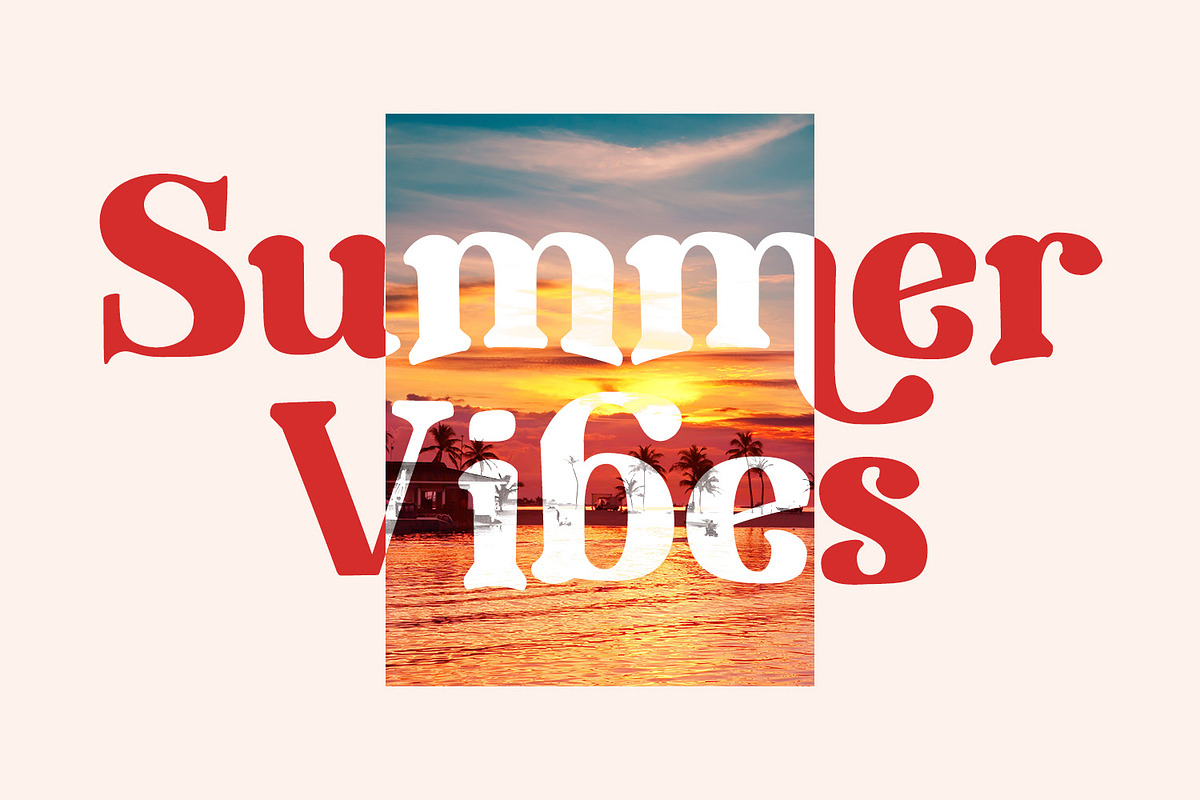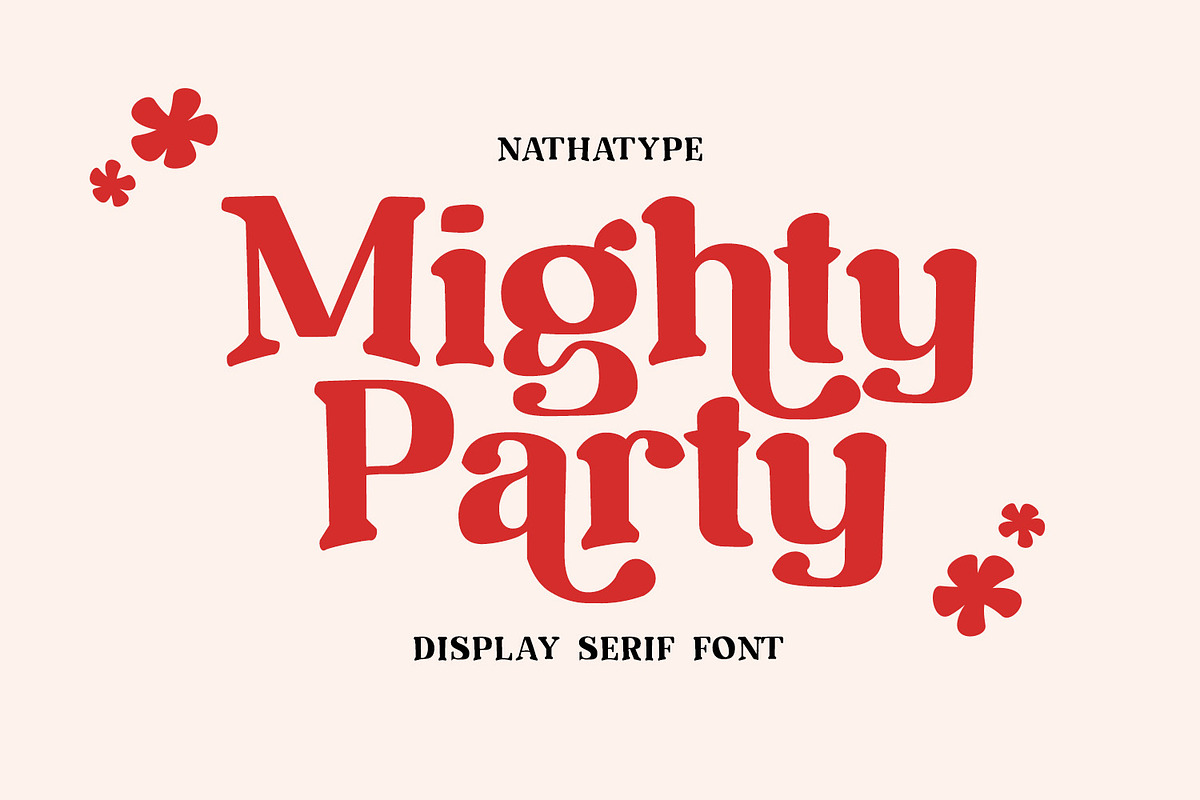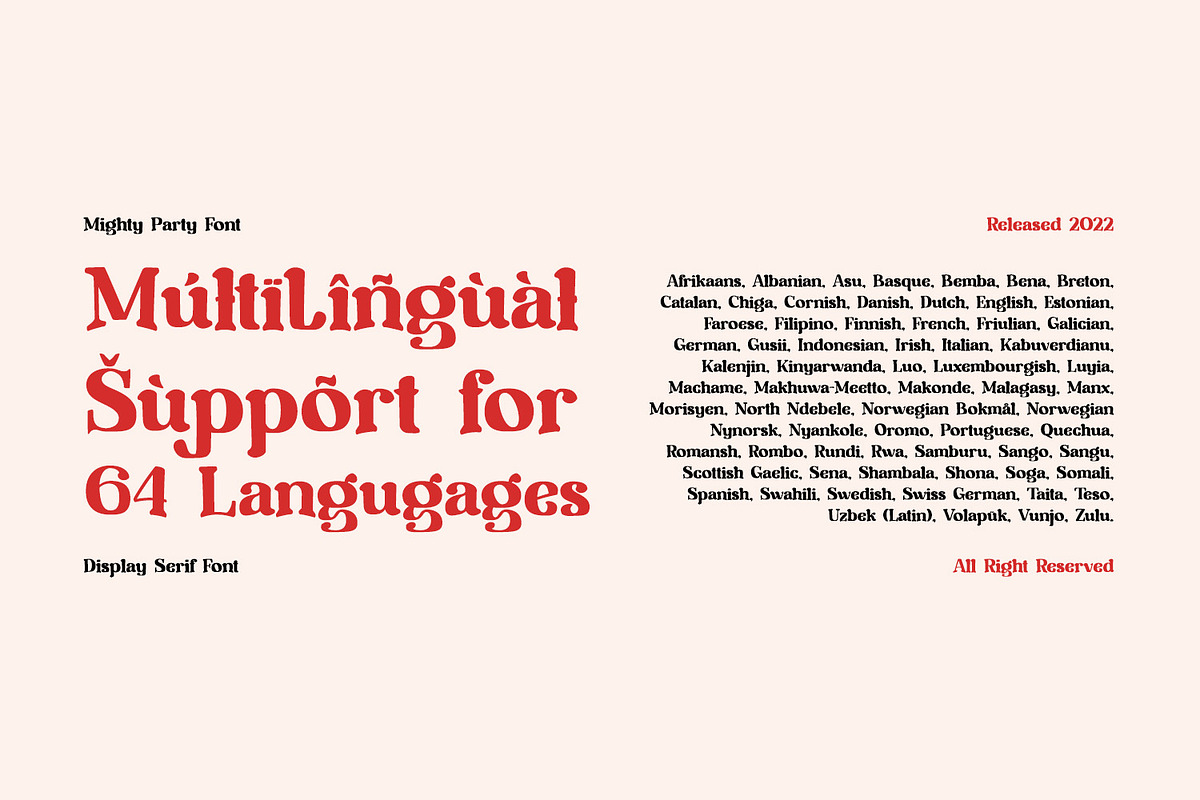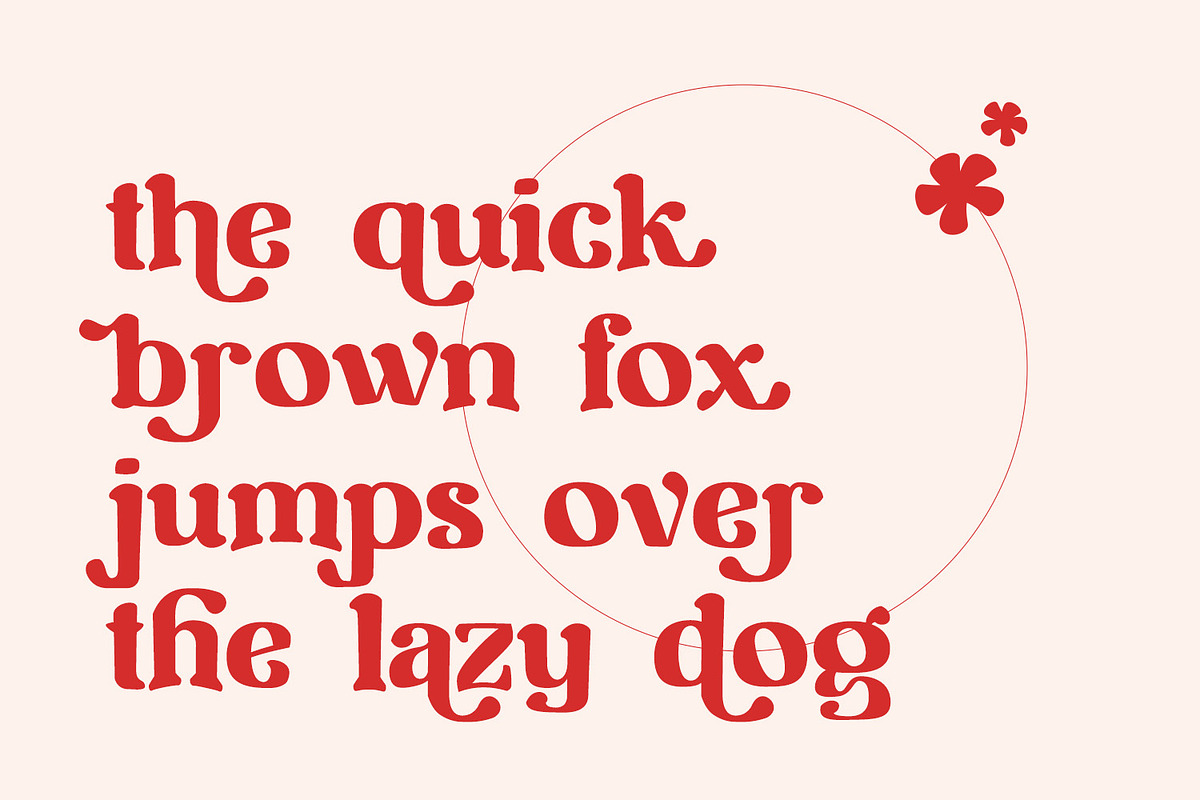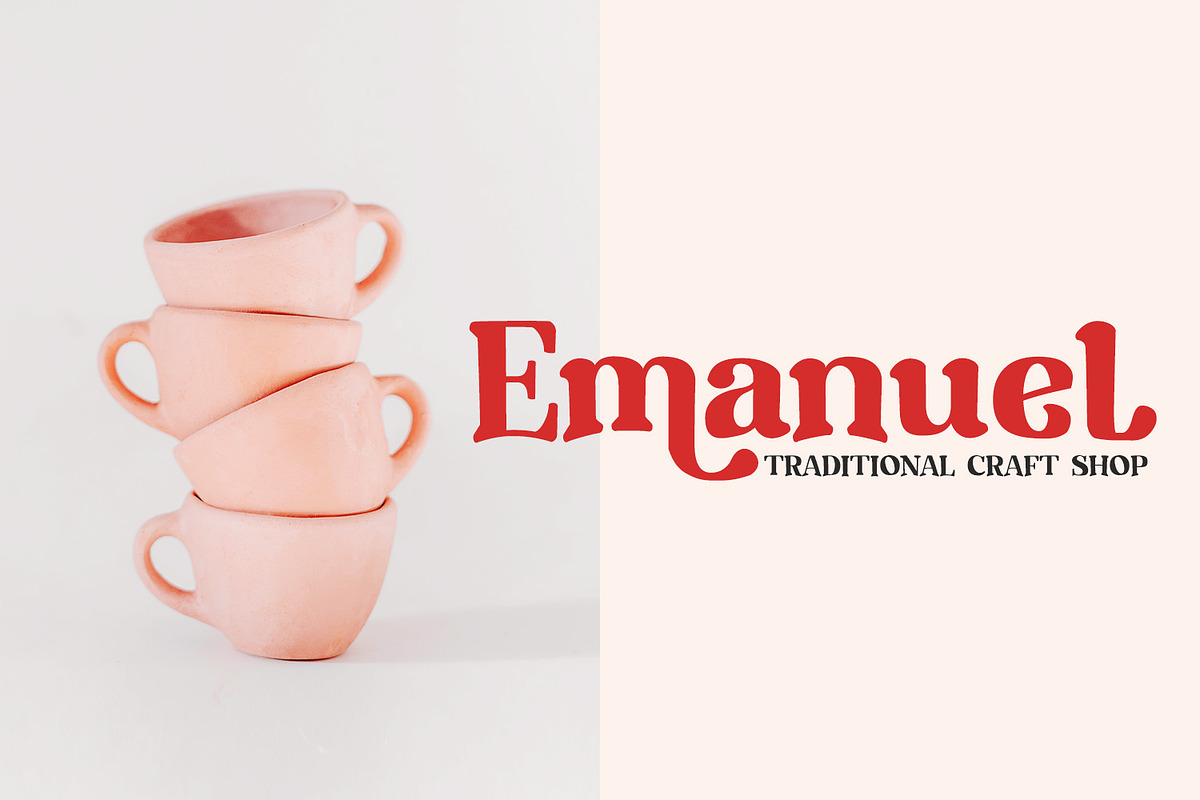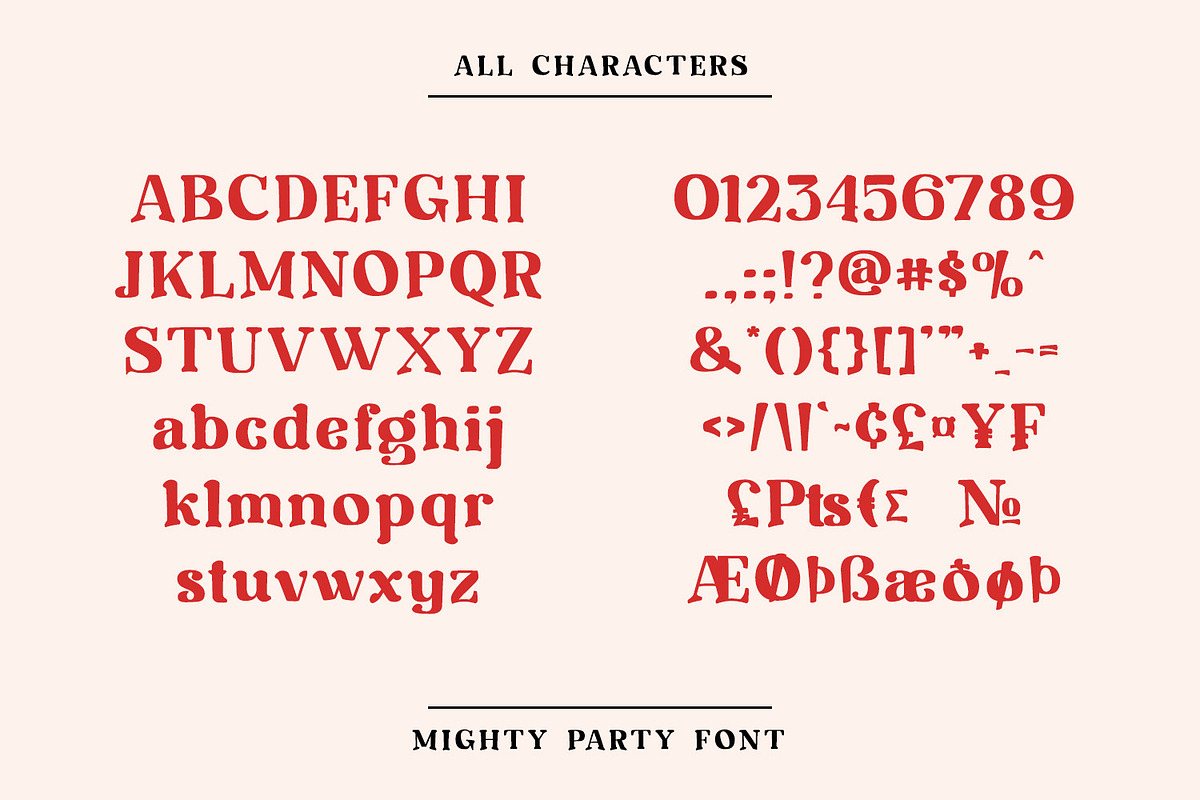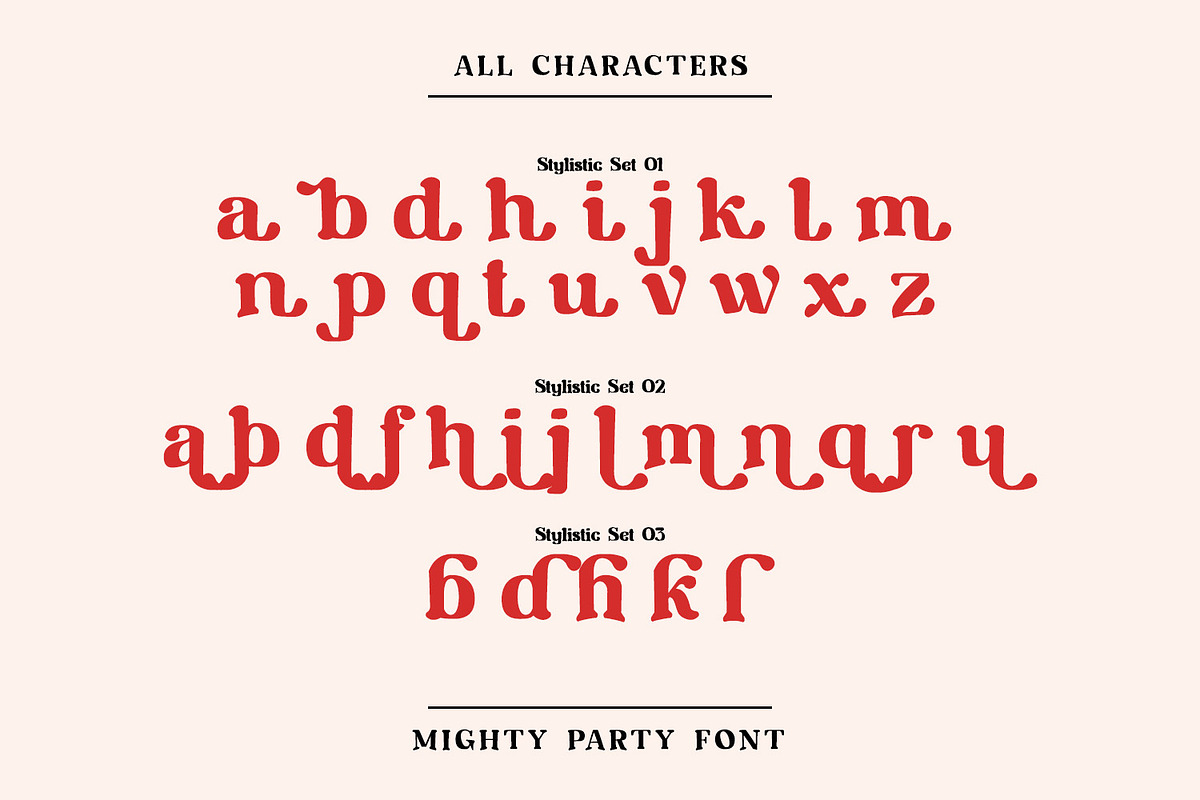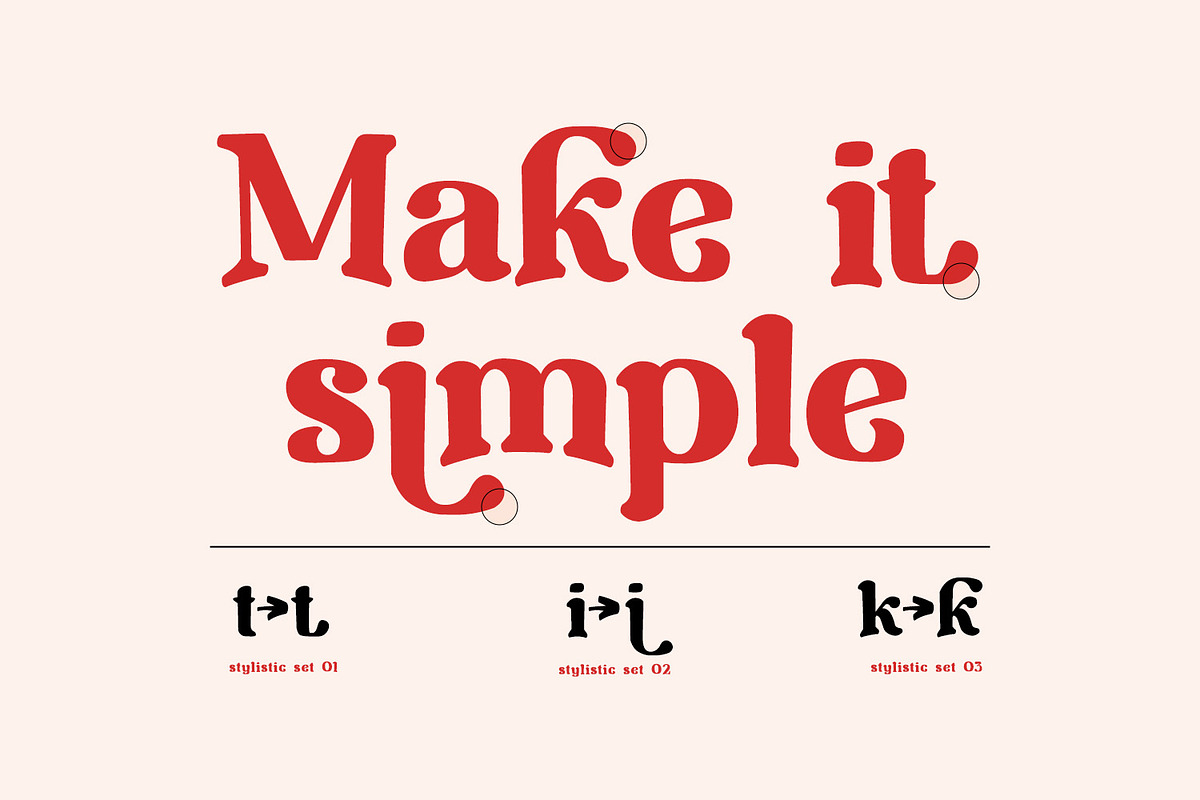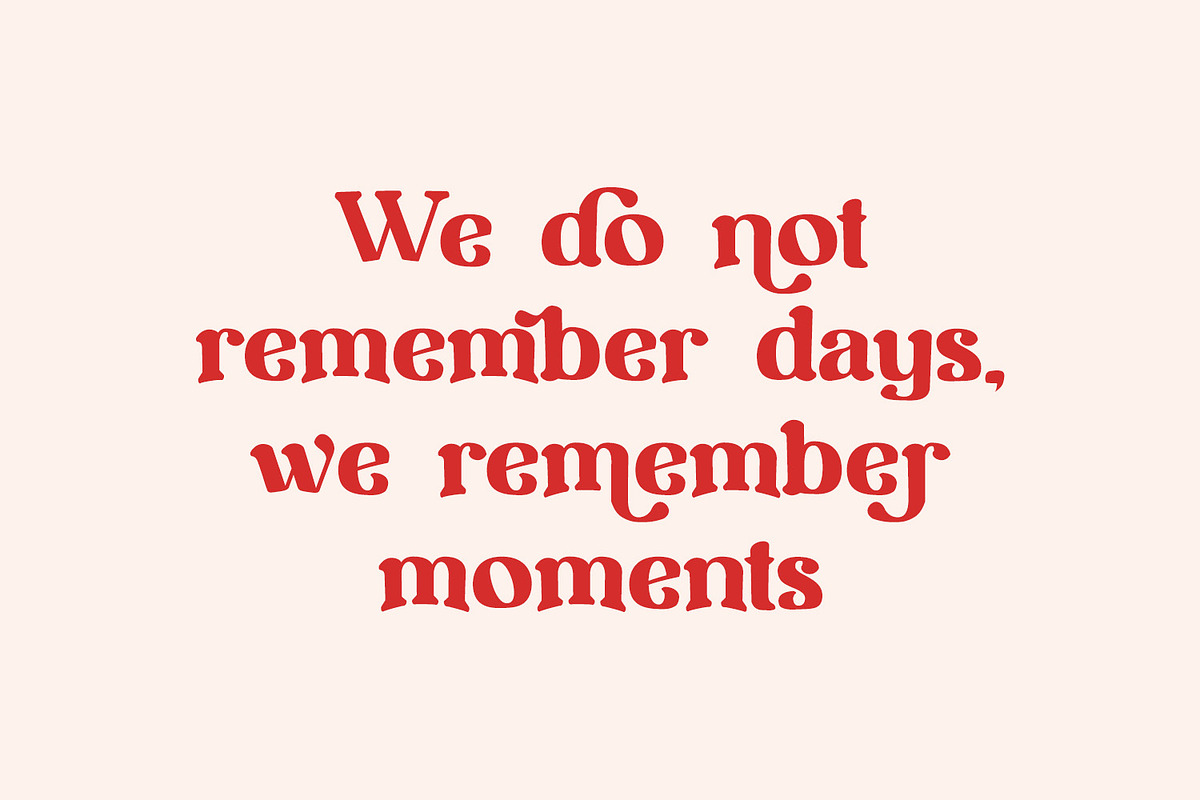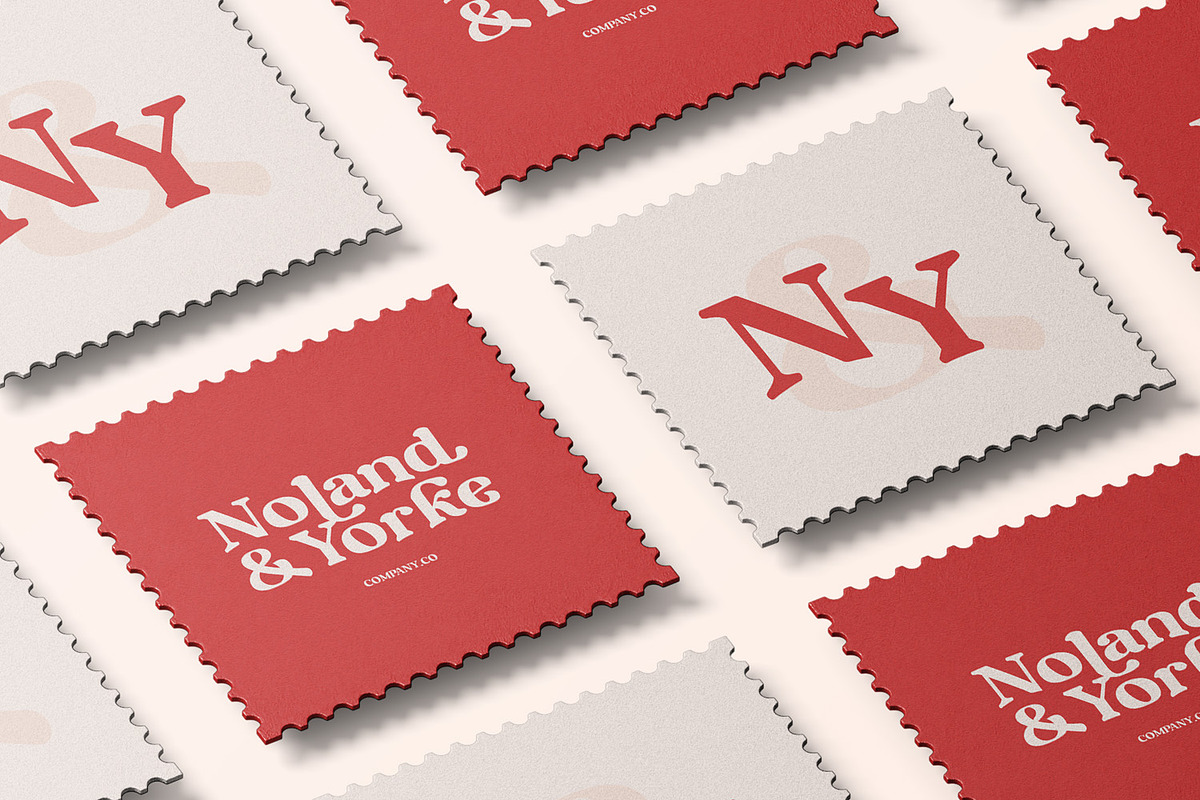
Mighty Party
Mighty Party is a display serif font in thick weights to express friendly, modern nuances. It has a high contrast in curvy final wipe details on some of the letters. Its heights and proportions are not the same, but its simple forms are legible in both small and big text sizes. You can also enjoy the lovely features available in this font.
- Stylistic Sets
Mighty Party fits for various design projects, such as posters, banners, logos, magazine covers, quotes, headings, printed products, invitations, name cards, merchandise, social media, etc. Find out more ways to use this font by taking a look at the font preview.